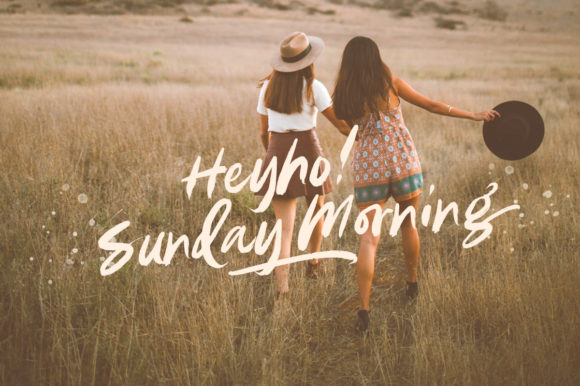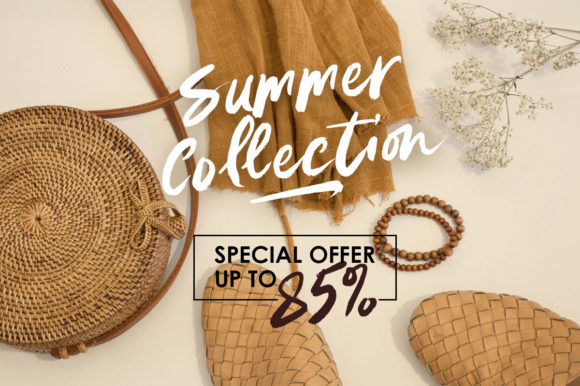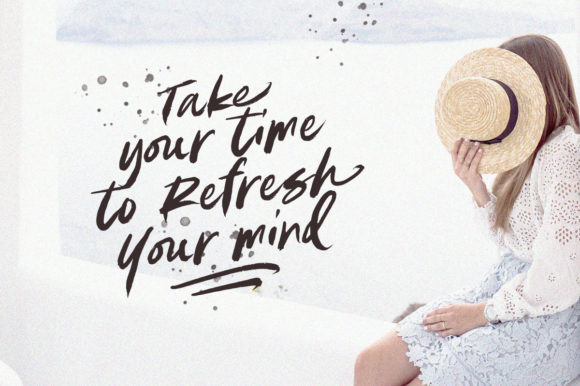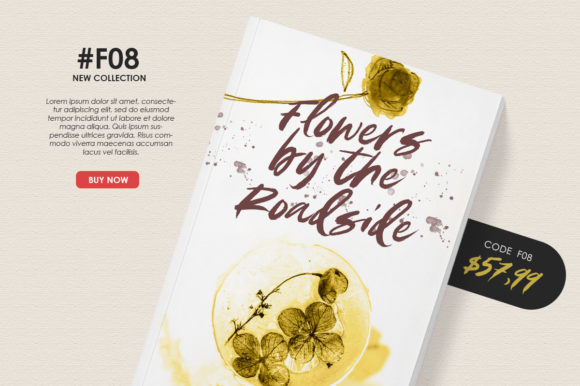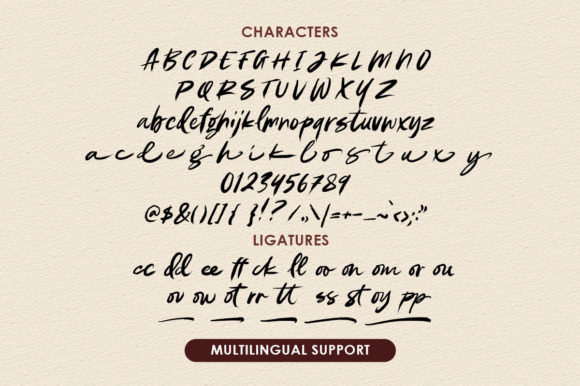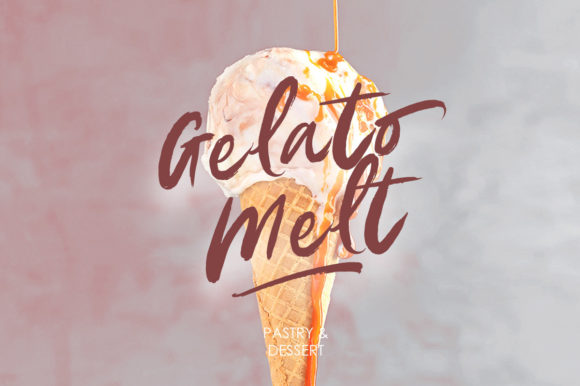
Introduction to Olive & Vine Font Font
Fonts play a crucial role in design, and the Olive & Vine Font font is a typeface that brings both character and versatility to any project. Whether you’re working on a branding project, a website, or a print design, the Olive & Vine Font font offers a unique style that can elevate your work.
Olive & Vine is a cool and brushed handwritten font.
This font was particularly crafted for those who need an impactful and refreshing look to their designs It is PUA encoded, which means that you can access all of the amazing glyphs and ligatures with ease.
Key Features of Olive & Vine Font Font
Why Choose Olive & Vine Font Font?
The Olive & Vine Font font is more than just a typeface – it’s a design tool that helps you communicate your message with style and clarity. Its unique character set and versatile design make it suitable for a wide range of applications, from elegant invitations to bold headlines.
With its carefully crafted letterforms and balanced proportions, the Olive & Vine Font font ensures readability and visual appeal across all mediums.
What makes Olive & Vine Font font special?
The Olive & Vine Font font stands out with its unique design, exceptional readability, and versatility across various design applications.